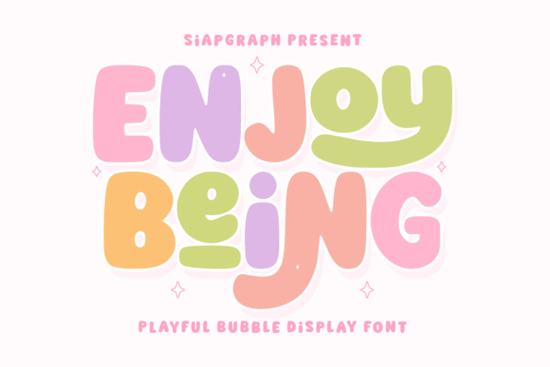
Looking for a cheerful bubble font that actually cuts well on vinyl and looks great on screen? The Enjoy Being font delivers exactly that soft, rounded letterforms with a bouncy, friendly personality that fits right into crafting and print-on-demand work. Whether you're making SVG cut files, sublimation designs, or social media graphics, this typeface keeps things readable while still feeling fun and approachable.
What projects work best with this font?
This font was built with crafters in mind. Its clean, bold shapes make it easy to cut on Cricut and Silhouette machines, and the rounded edges hold up well at different sizes. You can use it for:
- Personalized kids' apparel names, phrases, and monograms look adorable in this style
- Vinyl stickers and decals the bold construction weeds cleanly
- Custom mugs and tumblers perfect for sublimation prints
- Party invitations and greeting cards especially for birthdays and holidays
- Nursery wall art soft letterforms feel gentle and warm
- Social media posts grabs attention without looking aggressive
Is this font good for SVG cut files?
Yes. One of the main reasons crafters pick this typeface is that it's optimized for clean cutting. The letter spacing and stroke consistency mean fewer issues with weeding and layering. If you sell SVG files on Etsy or your own shop, fonts like this save time during the design process and reduce customer complaints about messy cuts.
For comparison, other bold display styles can work for cutting too, but the bubbly shapes of this particular font give it a softer look that's popular with buyers shopping for kids' and family-themed products.
What holidays and themes does it pair well with?
The upbeat, positive tone of this typeface makes it a natural fit for celebrations and seasonal projects. Think:
- Birthday parties invitations, banners, cupcake toppers
- Summer events pool party flyers, vacation shirts
- Children's Day classroom decorations, gift tags
- Valentine's Day sweet, romantic designs with a playful twist
How does it compare to other bubbly typefaces?
There are plenty of bubbly typefaces out there, but not all of them are built for crafting. Some look great on screen but turn into a mess when you try to cut them with a blade. This playful bubble display font was specifically designed to avoid that problem.
Here's how it stacks up compared to similar options:
The sweet spot for this font is anything that needs to feel friendly, optimistic, and kid-friendly without sacrificing readability.
Who should use this typeface?
This typeface works well for a range of creative professionals and hobbyists:
- Print-on-demand sellers who need reliable fonts for t-shirts, mugs, and stickers
- DIY crafters working on home décor, party supplies, or gifts
- Small business owners creating branding materials with a warm, approachable feel
- Graphic designers building templates or social media kits for clients